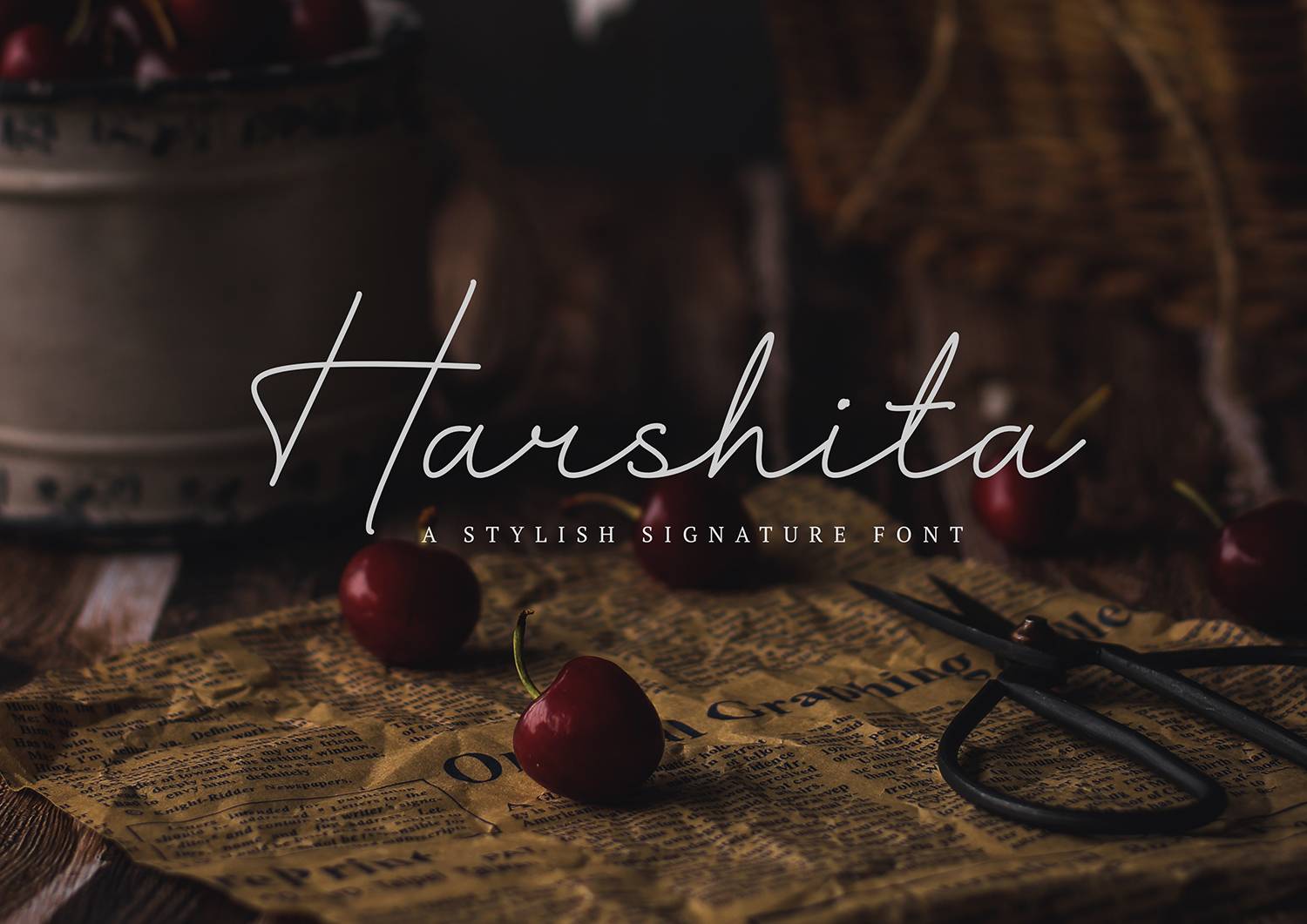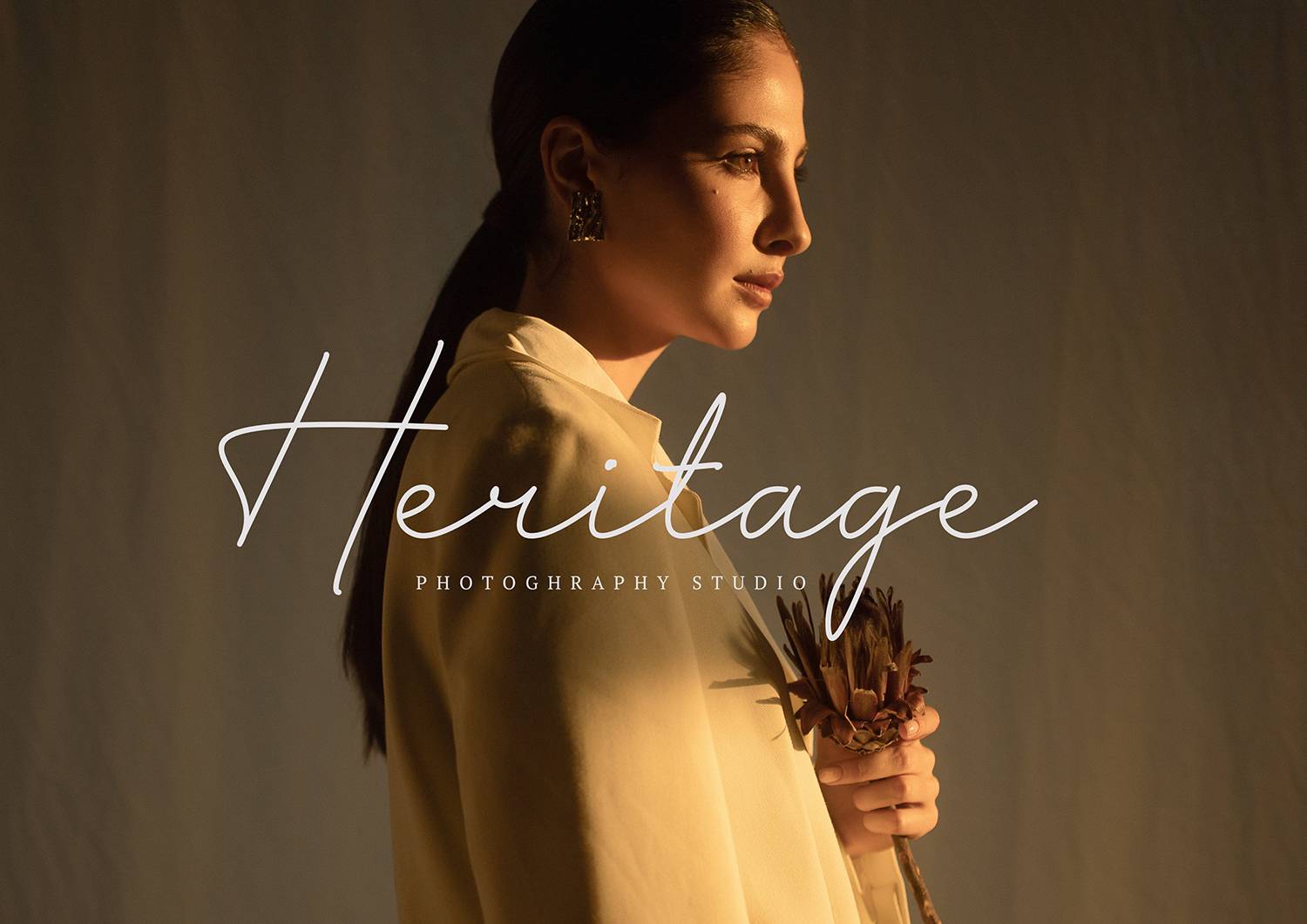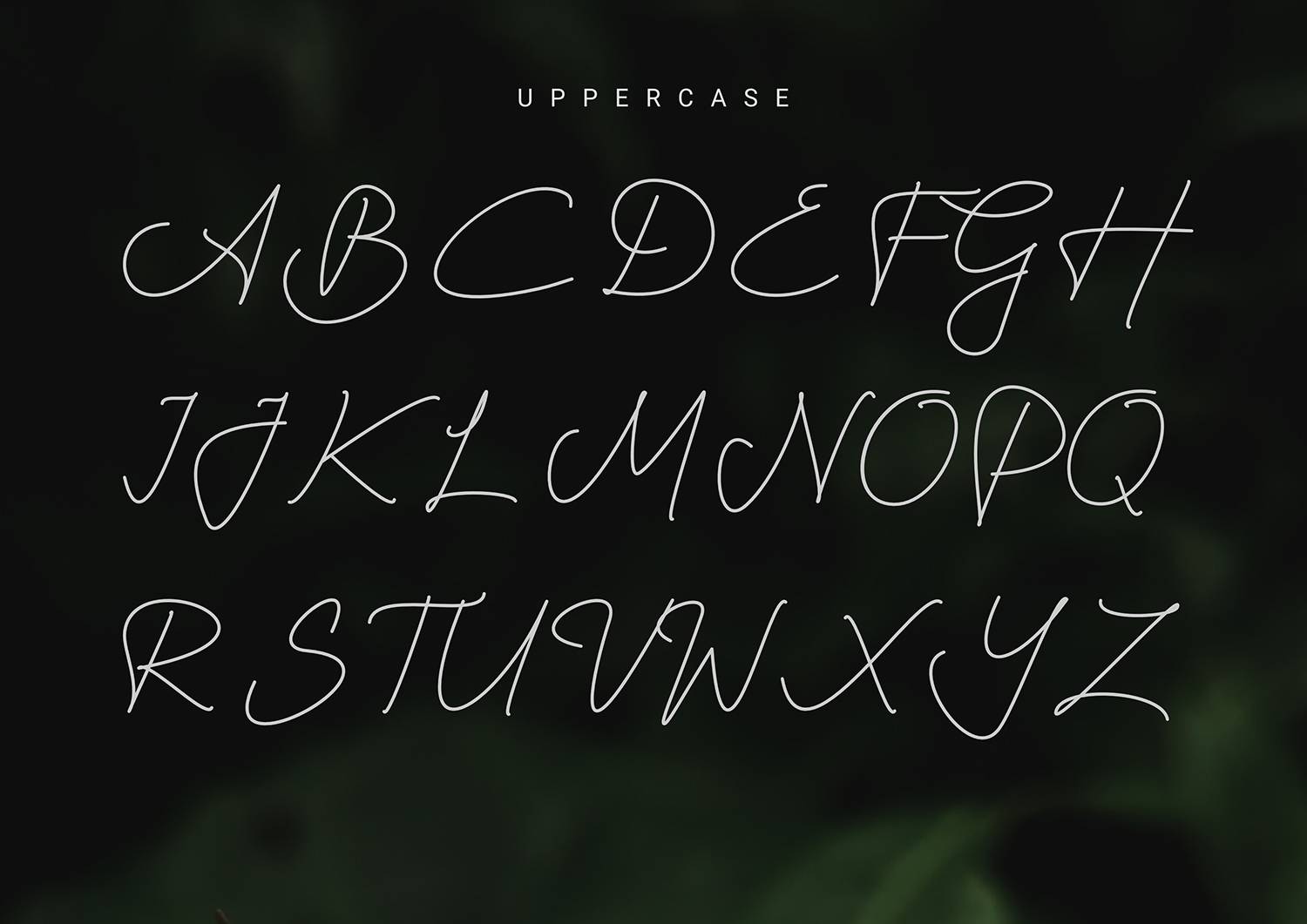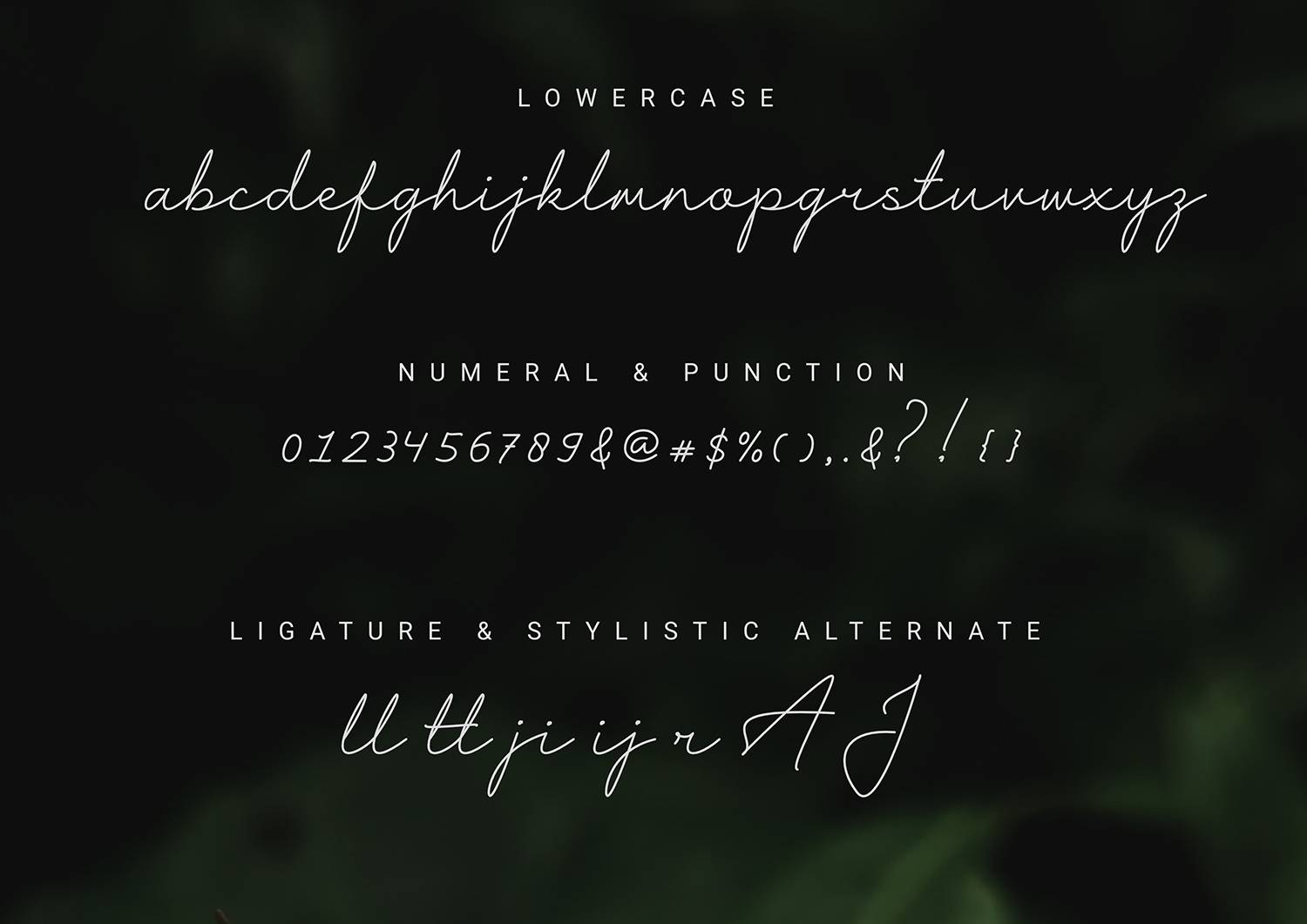
Harshita is a delicate, elegant script font featuring thin, flowing strokes that mimic natural handwriting with a refined, airy feel. Its slender letterforms and graceful curves make it perfect for sophisticated branding, wedding invitations, and stylish editorial uses where a touch of personal charm and subtle beauty is desired. This font brings a light, graceful personality that works well in designs needing an elegant, handcrafted look.
Harshita Font
About Harshita Font